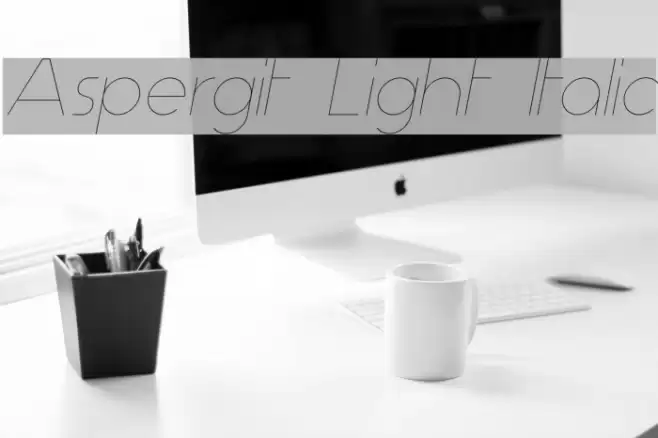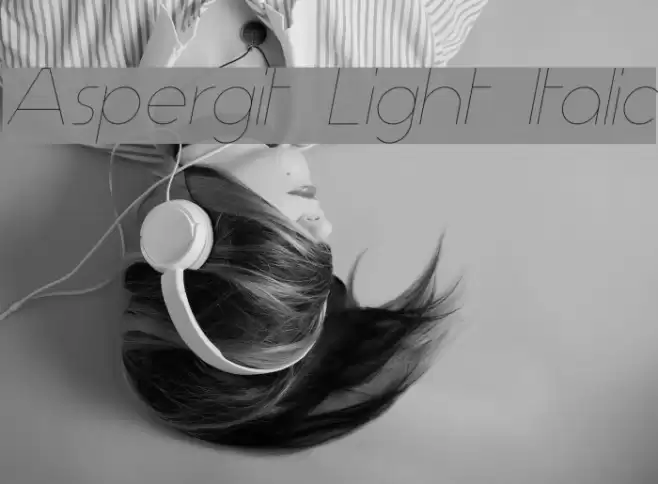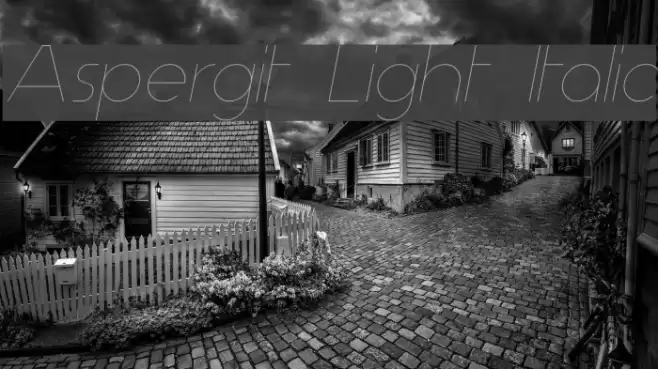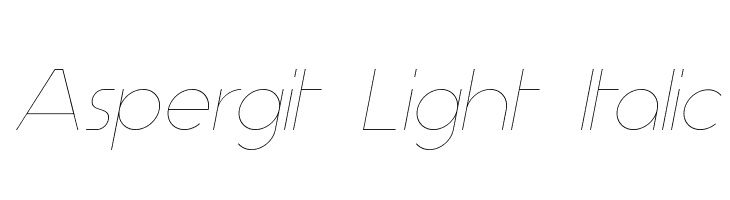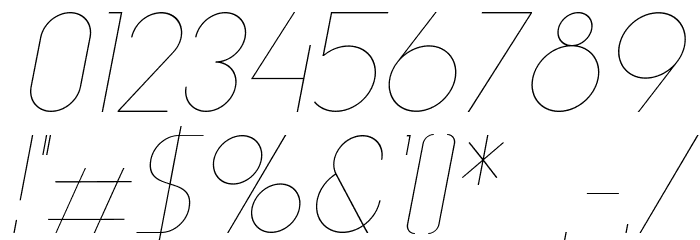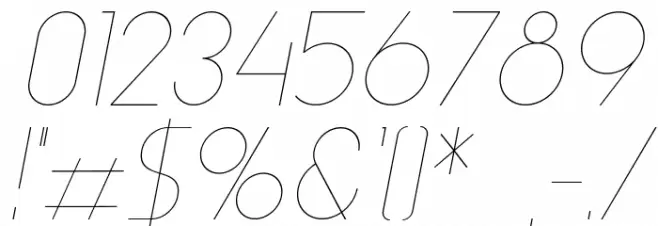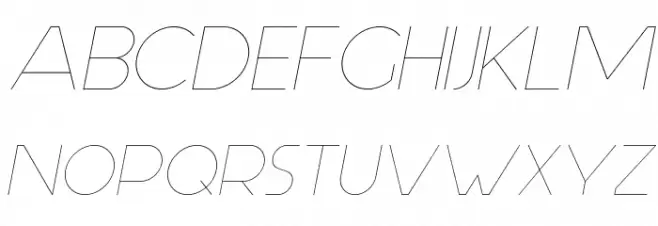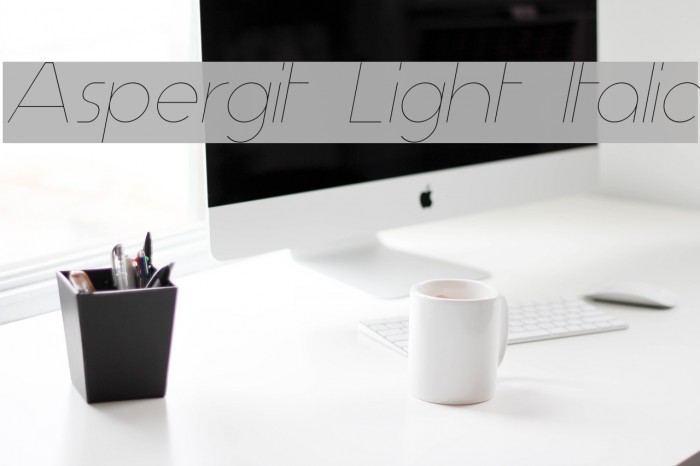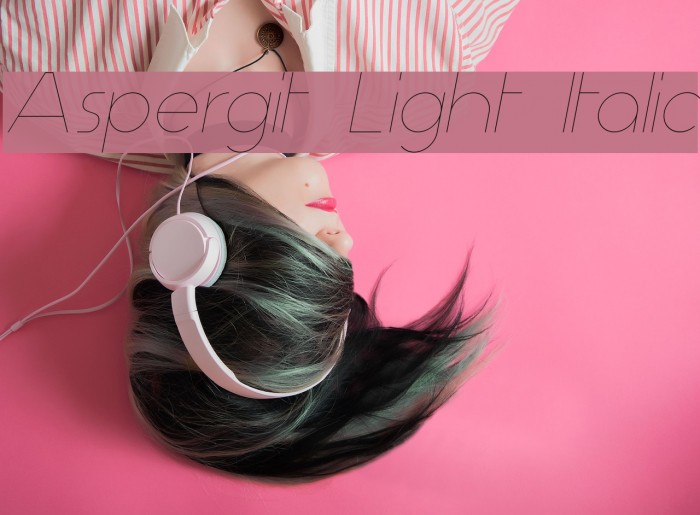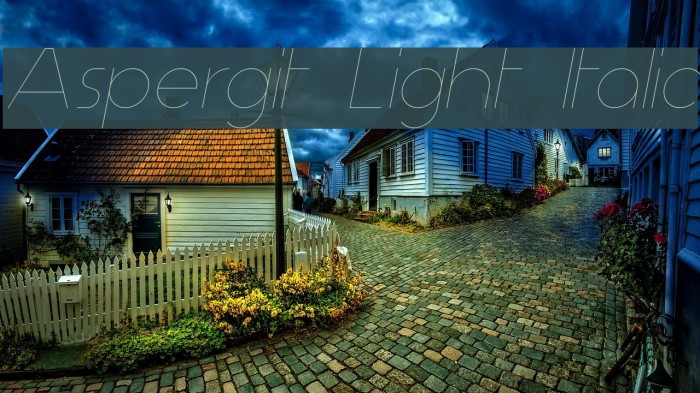
Aspergit Light Italic Font
Aspergit Light Italic Description
This font features a sleek, modern design with a light and airy feel. The characters are elegantly crafted with a consistent thin stroke, giving it a refined and sophisticated appearance. The italic style adds a dynamic and fluid touch, enhancing its contemporary aesthetic. The uppercase and lowercase letters maintain a harmonious balance, while the numerals and special characters are designed with the same attention to detail. The overall look is clean and minimalistic, making it versatile for various design applications.
A sleek, modern, and light italic font with a refined and sophisticated appearance from Uncategorized fonts.
- Proposed Projects: Ideal for modern branding, fashion magazines, elegant invitations, and minimalist web design.
- Use Case: Headlines, Logos, Invitations